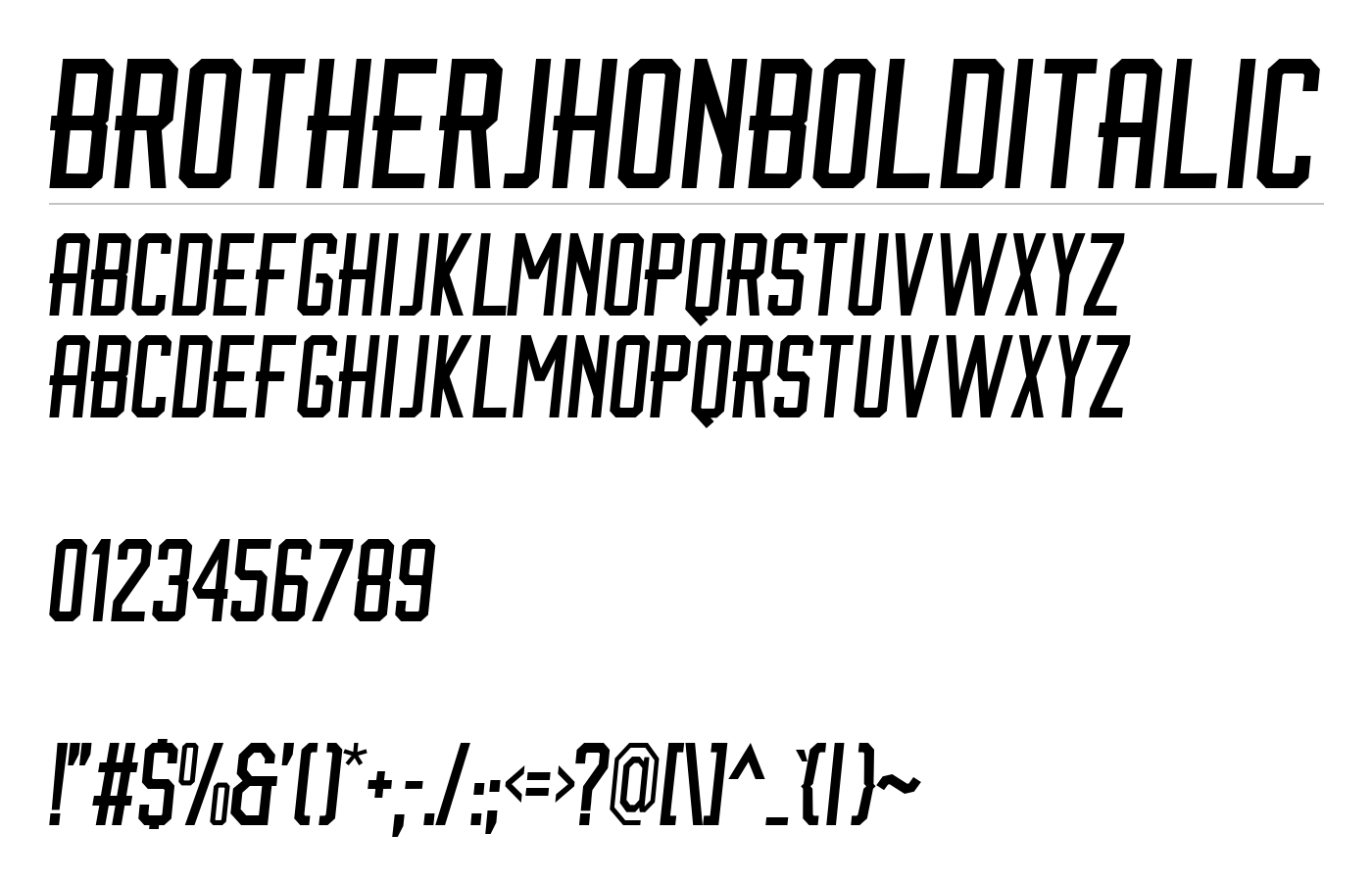
BrotherJhonBoldItalic is a bold, condensed sans serif font with a strong, dynamic slant that conveys energy and modernity. Its tall, narrow letterforms and sharp, angular edges give it an assertive and sporty character, making it ideal for impactful headlines, branding, and designs needing a confident, forward-moving feel. This font works well in sports logos, posters, and packaging where a sleek, bold statement is essential.
BrotherJhonBoldItalic Font
About BrotherJhonBoldItalic Font
| Font family | BrotherJhonBoldItalic Font |
| Designer | OpenTypesStudio |